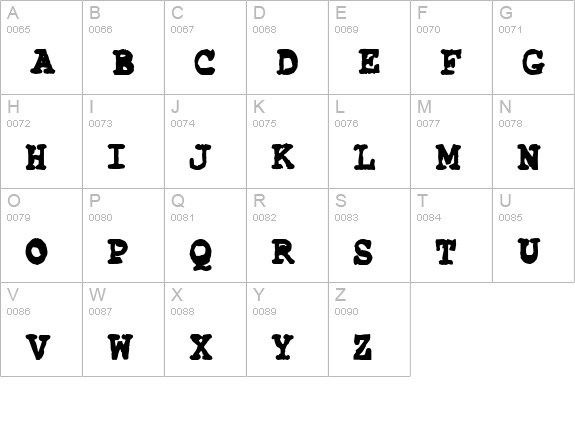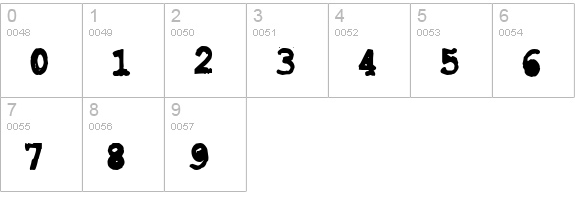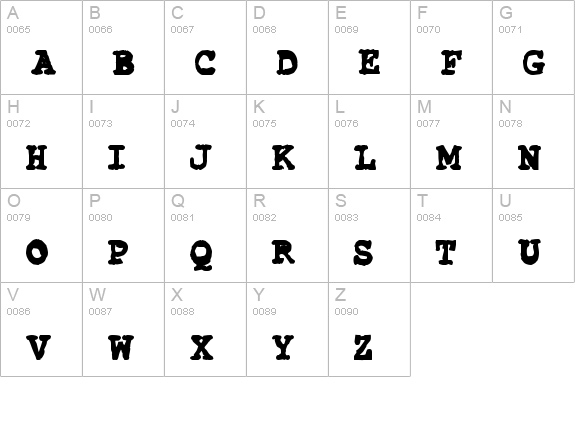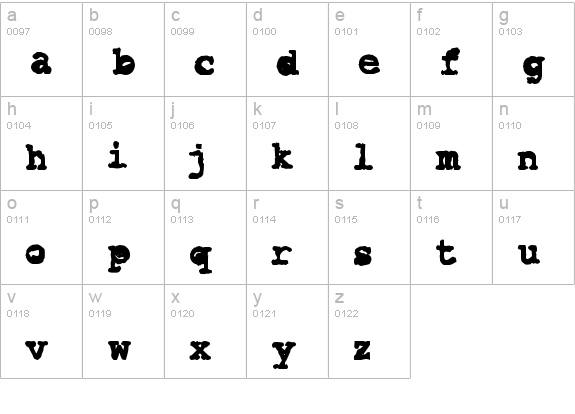
CK Typewriter Font Details
The CK Typewriter font is a classic and timeless typeface that evokes nostalgia for the golden age of typewriters. With its clean and simple design, this font is perfect for conveying a sense of authenticity and vintage charm in your projects. The CK Typewriter font is versatile and can be used for a variety of purposes, from creating eye-catching headlines to adding a touch of retro flair to your designs. Best of all, the CK Typewriter font is available for free download at FontsMarket.com, making it easily accessible for all designers and creatives looking to add a touch of old-school cool to their work. Whether you're working on a poster, logo, or website design, the CK Typewriter font is sure to make a bold statement and capture the attention of your audience. Download this font today and bring a touch of classic elegance to your projects!